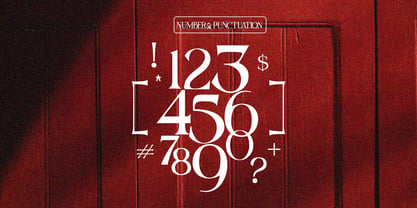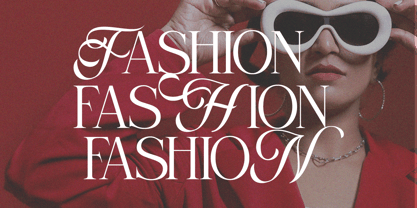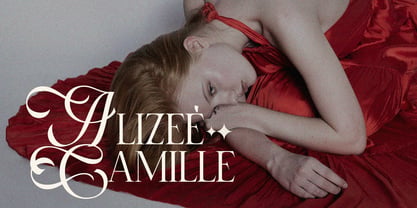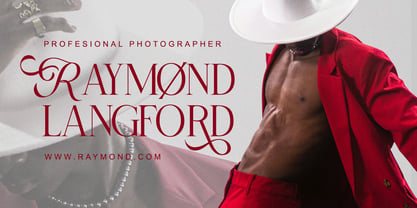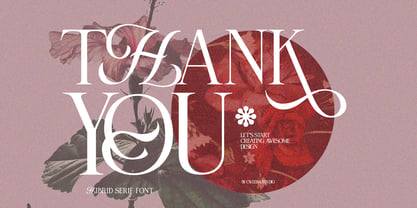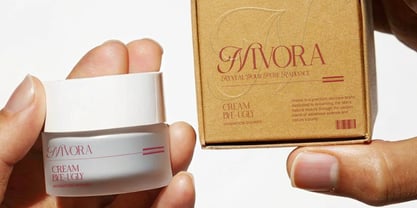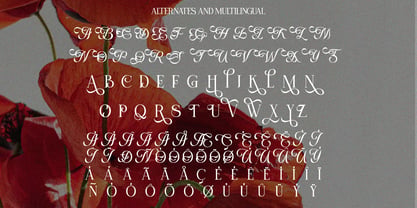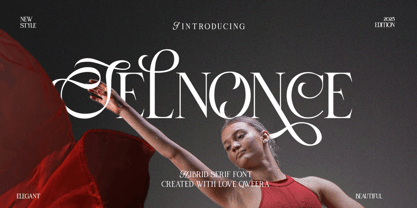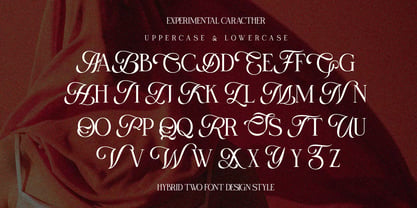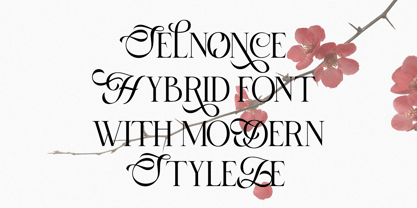
Selnonce
by Qweera Studio
Selnonce - Elegant Luxury Serif Font for Sophisticated Branding Selnonce is a breathtaking serif typeface that embodies refined elegance with its contemporary design and graceful details. Featuring both Regular and Italic styles with exquisite alternates and ligatures, this font is expertly crafted for luxury branding, high-end logos, premium packaging, and editorial designs that demand both prestige and visual impact. Where Modern Elegance Meets Timeless Luxury With its delicate serifs and flowing italic variant, Selnonce delivers exceptional versatility for discerning brands. The carefully designed alternates and ligatures enable flawless typographic harmony, perfect for creating distinctive visual identities with an air of exclusivity. Premium Features Include: Luxury Serif Design – Sophisticated letterforms with couture-inspired details Dual Style Versions – Regular & italic for dynamic applications Stylish Alternates – 20+ premium character variations Graceful Ligatures – Seamless letter connections Universal Compatibility – From business cards to billboards Extended Latin Support – Comprehensive character set Elevate Your Brand with Selnonce's Refined Beauty Ideal for: Luxury fashion branding High-end cosmetic packaging Premium editorial layouts Elegant logo creation Sophisticated stationery design Available Now – Experience Selnonce's Timeless Elegance!